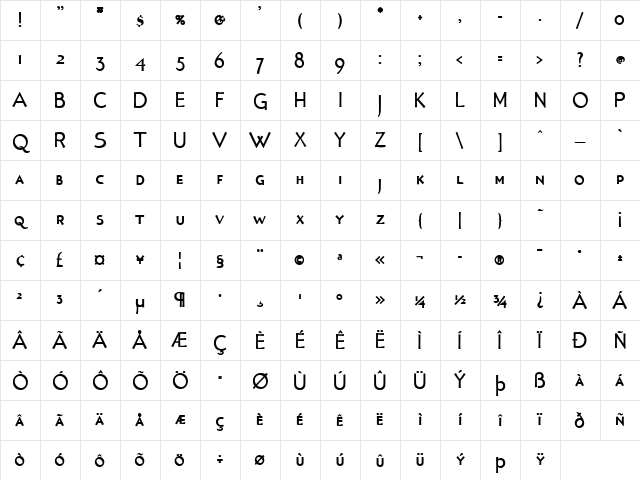
Tonic BoldSC Free Font
Tonic BoldSC
Style: BoldSC
Design Context for Tonic
Tonic is a composed and adaptable typeface that performs quietly and consistently across a wide range of design contexts. Its bold stroke weight gives it real presence on the page.